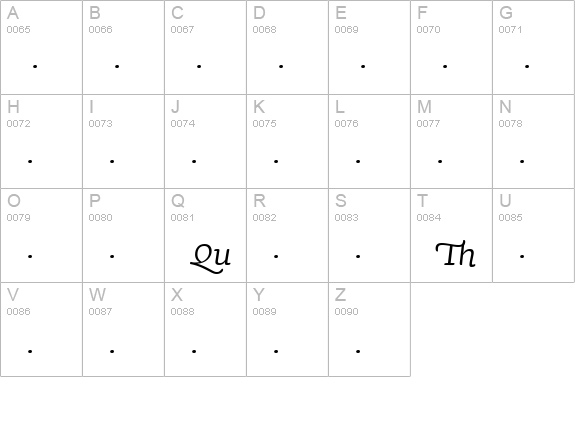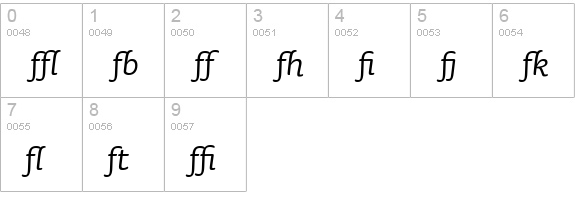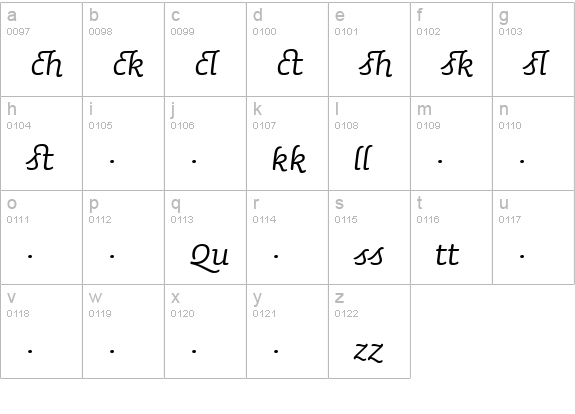
SaunaLigatures-ItalicSwash Font Details
Introducing SaunaLigatures-ItalicSwash, a captivating and elegant font that will transport your designs to a world of exquisite sophistication. This font's unique combination of delicate curves and graceful strokes creates a mesmerizing visual experience that is sure to captivate your audience. SaunaLigatures-ItalicSwash stands out from the crowd with its intricate ligatures and swashes, adding a touch of whimsy and charm to any project. Whether you're designing invitations for a luxurious wedding, crafting an eye-catching logo for a high-end brand, or creating stunning editorial layouts, this font will effortlessly elevate your creations to new heights of elegance. But what truly sets SaunaLigatures-ItalicSwash apart is its accessibility. We believe that beauty should be freely available to all, which is why this font is available for download at FontsMarket.com, completely free of charge. Now, you can bring a touch of luxury to your designs without breaking the bank. With its clean lines and flawless execution, SaunaLigatures-ItalicSwash is not only visually stunning but also highly versatile. Its legibility remains uncompromised, making it suitable for a wide range of applications, from headlines and titles to body text and captions. This font effortlessly strikes the perfect balance between style and readability, ensuring that your message is beautifully presented and effectively communicated. So why settle for ordinary when you can embrace the extraordinary? Download SaunaLigatures-ItalicSwash now from FontsMarket.com and unleash your creativity with this stunning font that combines elegance, versatility, and the freedom of being freely available. Elevate your designs and make a lasting impression with SaunaLigatures-ItalicSwash, the font that turns simple words into works of art.